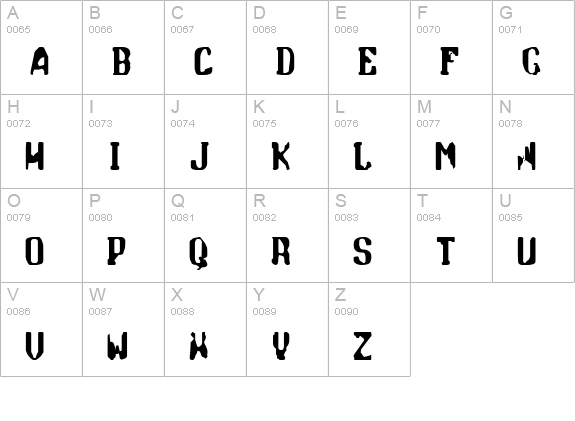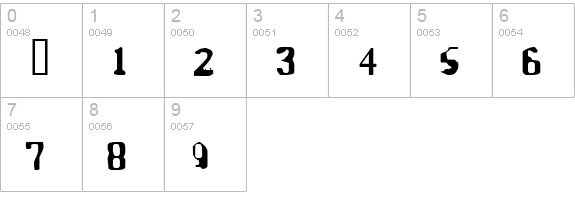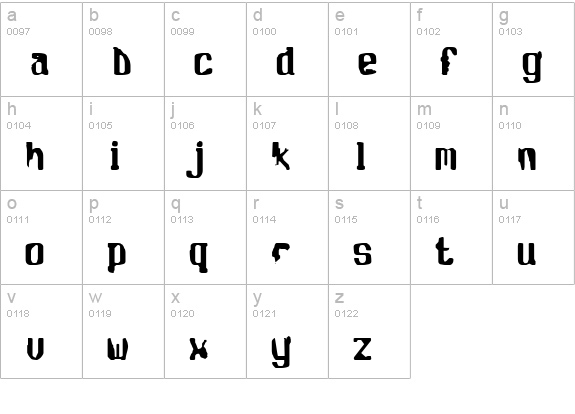
Flottig Font Details
Flottig font is a modern and stylish typeface that exudes elegance and sophistication. Its sleek lines and bold curves make it perfect for a wide range of design projects, from branding to editorial design. The versatility of Flottig font allows it to be used in both digital and print applications, making it a valuable addition to any designer's toolkit. What sets Flottig font apart is not only its aesthetic appeal but also the fact that it is free to download. Yes, you read that right - this stunning font is freely available for download at FontsMarket.com. By offering Flottig font for free, designers have the opportunity to access a high-quality typeface without breaking the bank. Whether you're working on a logo, website, or marketing materials, Flottig font is sure to elevate your designs and make them stand out. Don't miss out on this fantastic opportunity to enhance your projects with the exquisite Flottig font - download it now at FontsMarket.com!